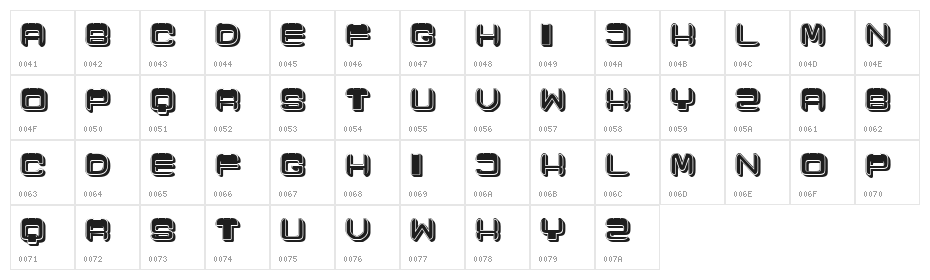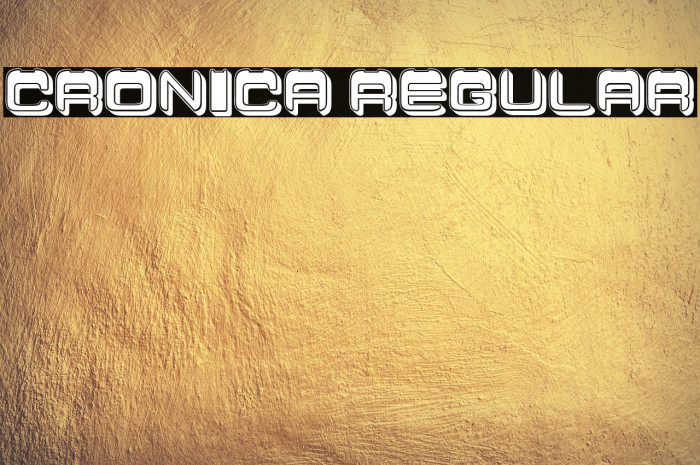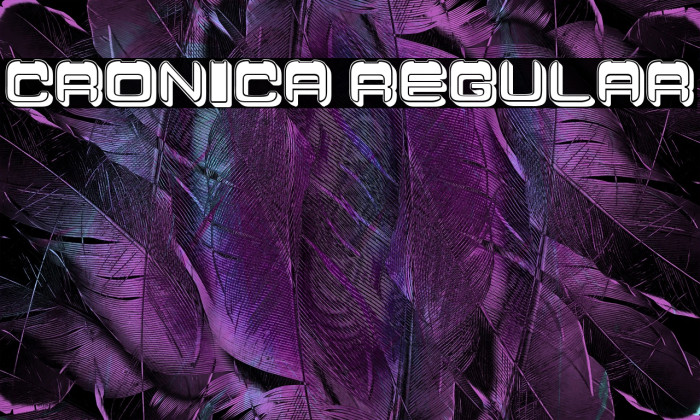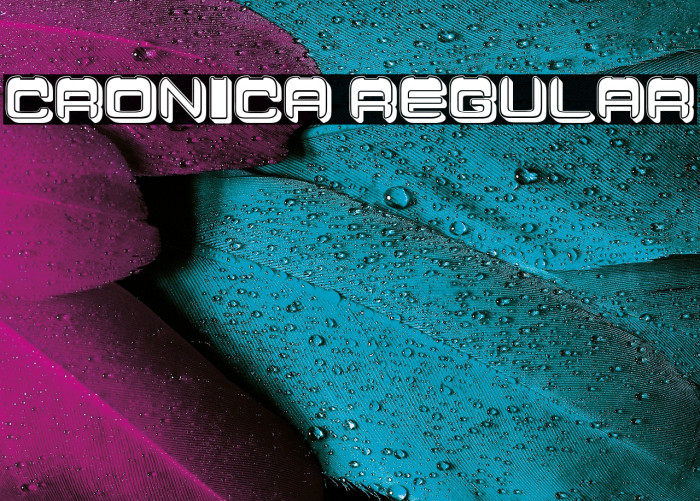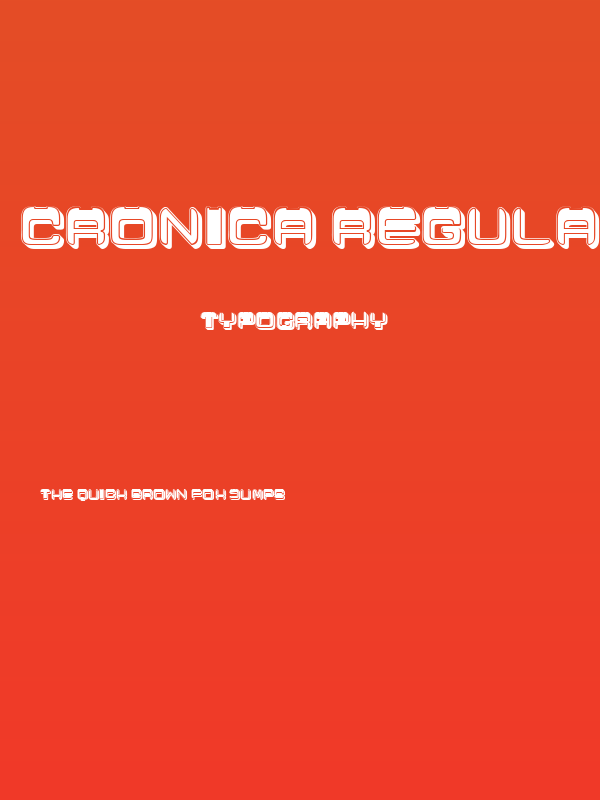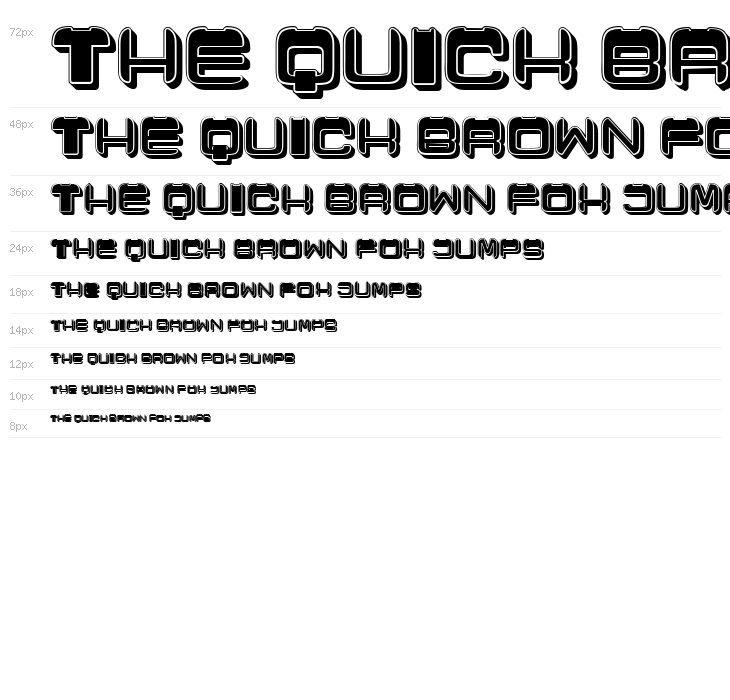
Cronica Regular Font
Cronica Regular Description
This font features a bold, geometric design with a distinct three-dimensional effect created by its layered outline. The characters are uppercase and exhibit a futuristic style, with sharp angles and clean lines. The inner strokes are solid and thick, while the outer layers provide a shadow-like appearance, enhancing the depth and visual interest. This font is highly stylized, making it suitable for attention-grabbing headlines or display purposes. Its unique structure and bold presence make it stand out in any design context.
| Overall Style | Futuristic, Decorative |
| Proposed Projects | Ideal for futuristic branding, sci-fi themed posters, video game titles, and eye-catching headlines. |